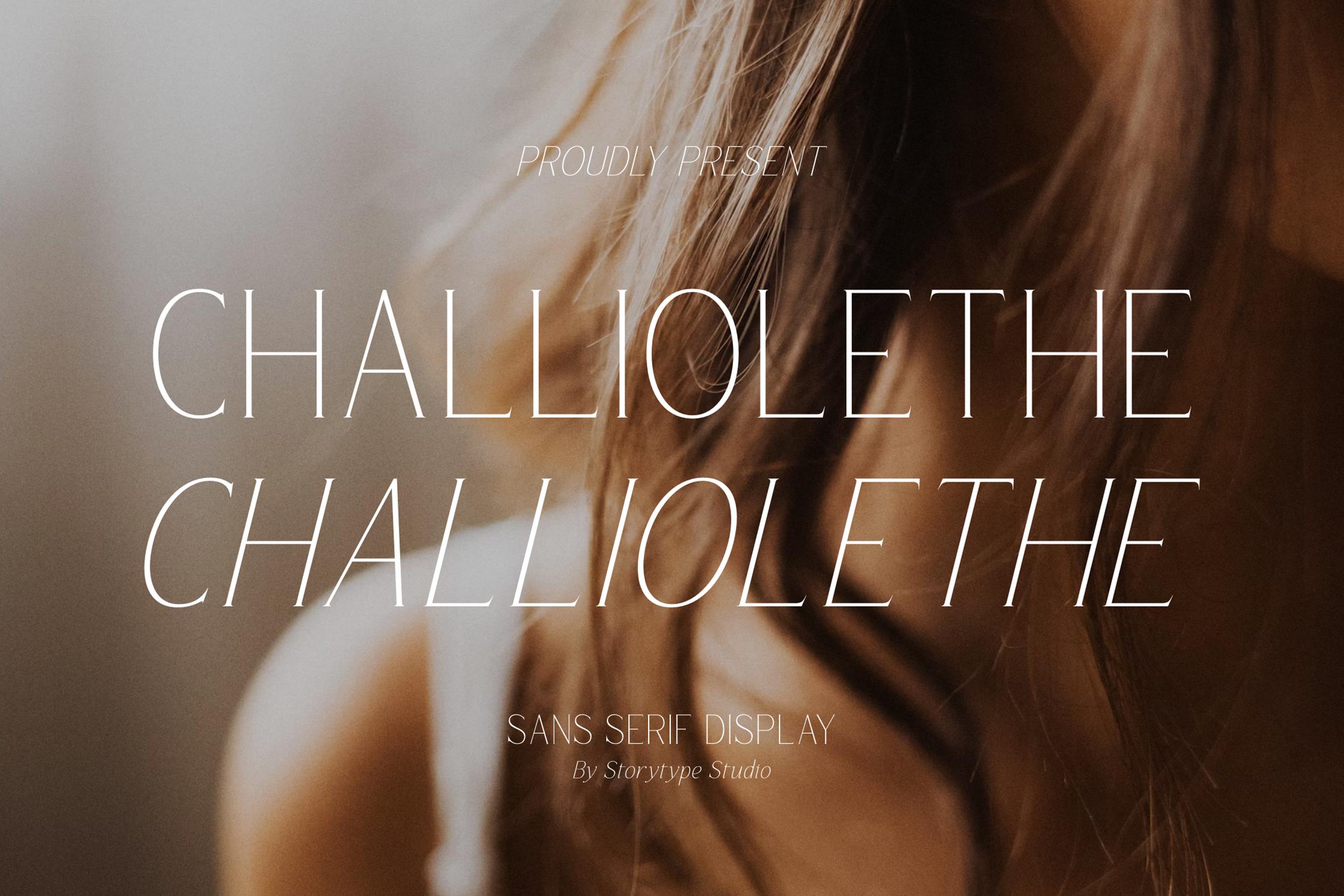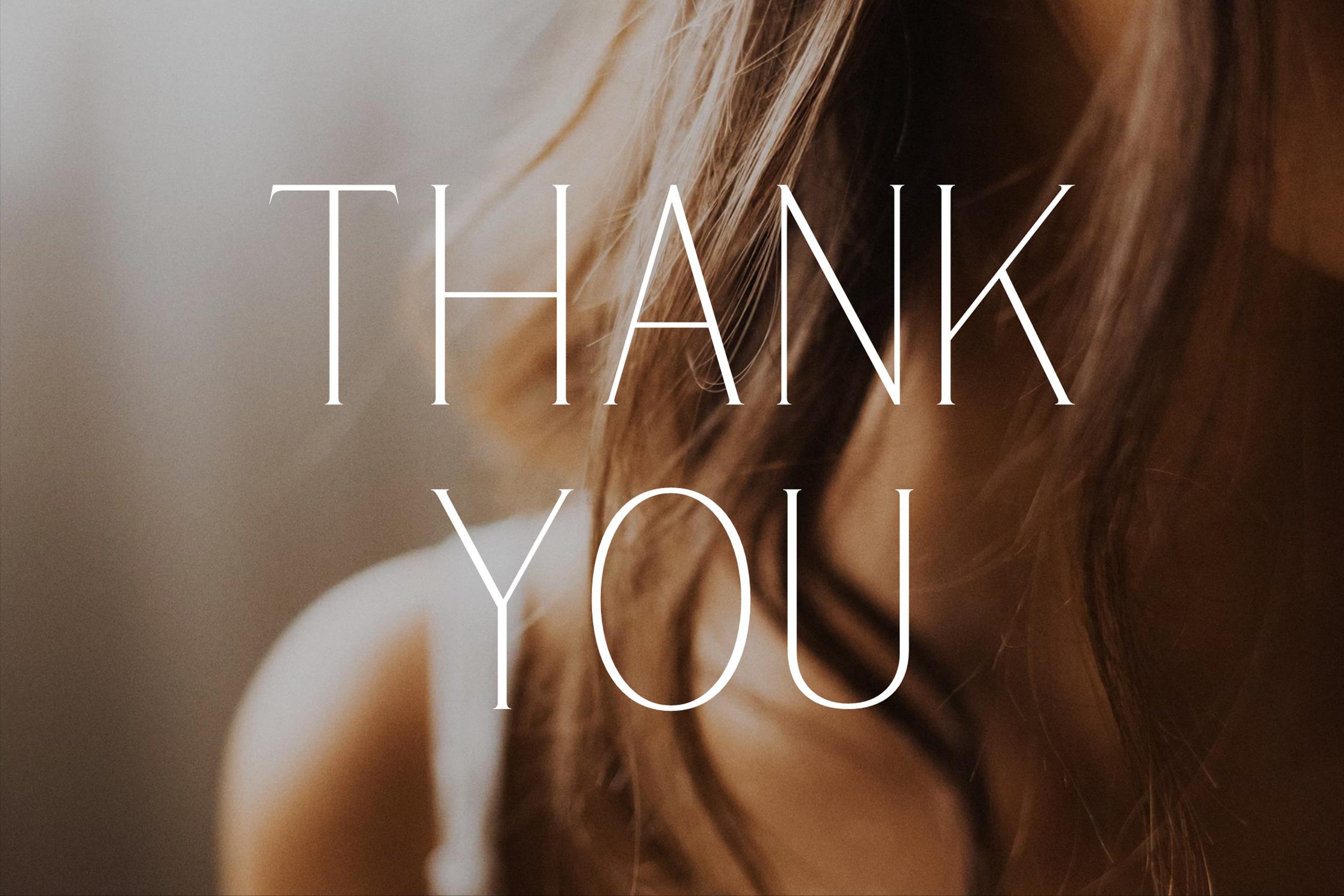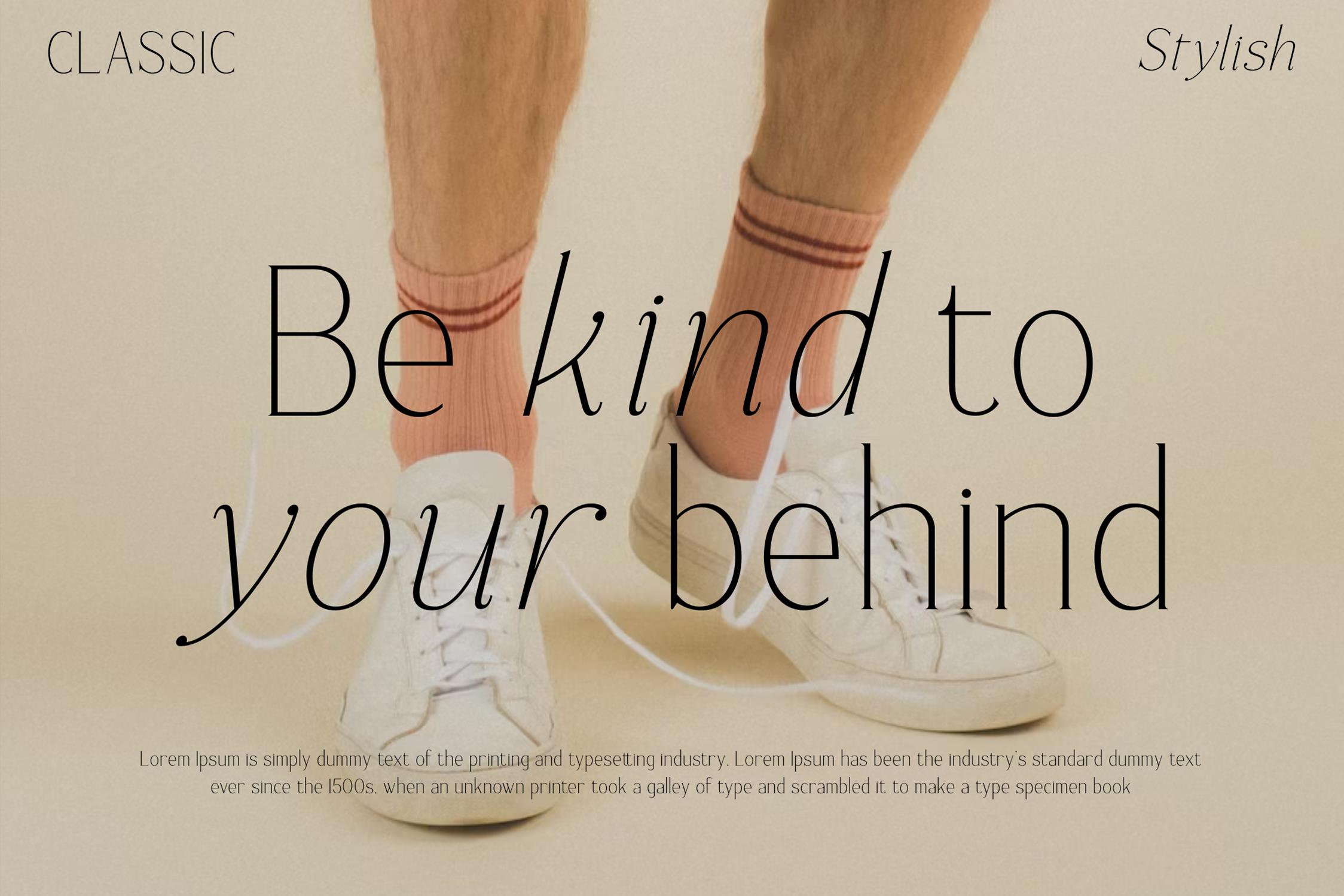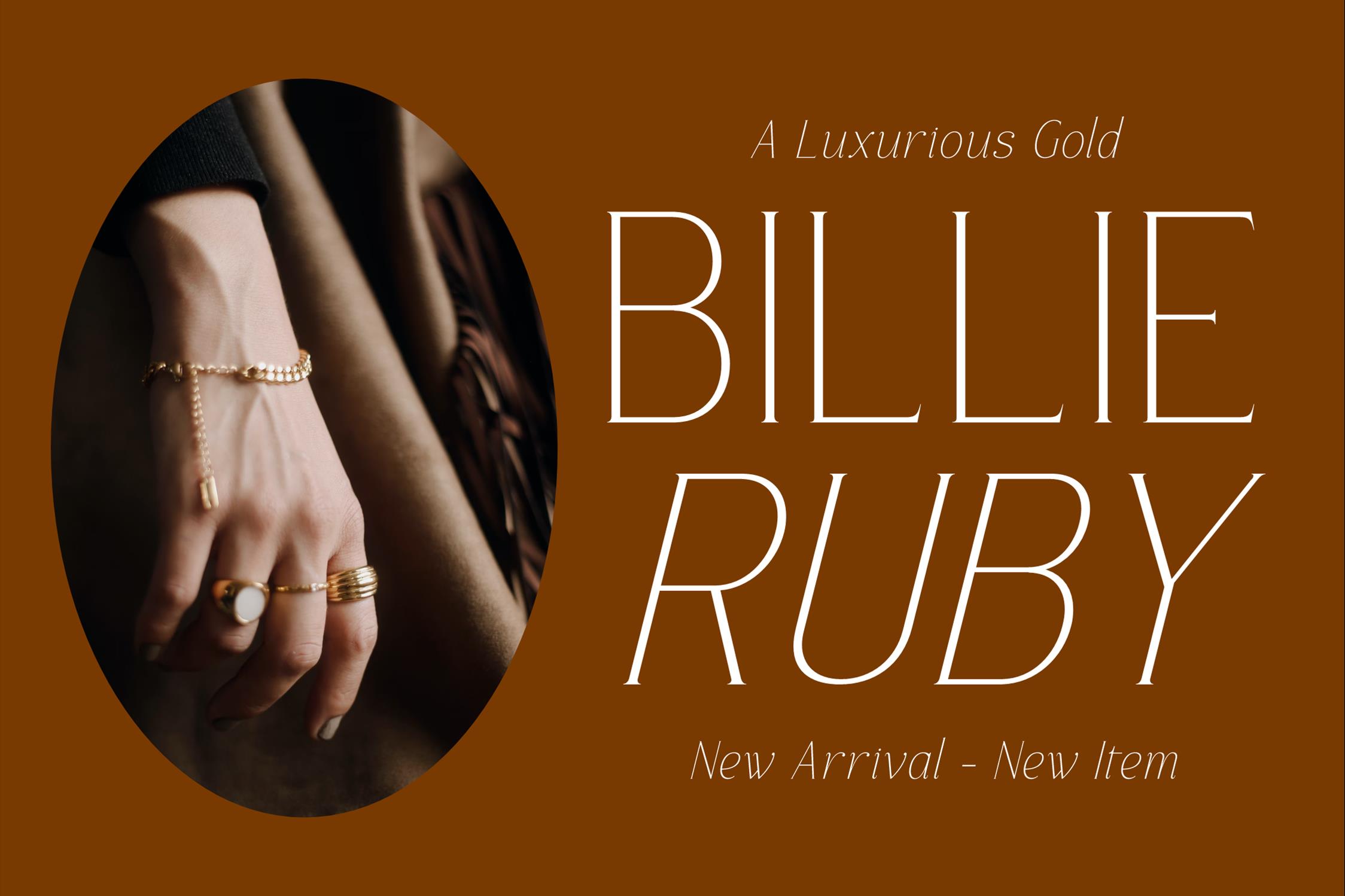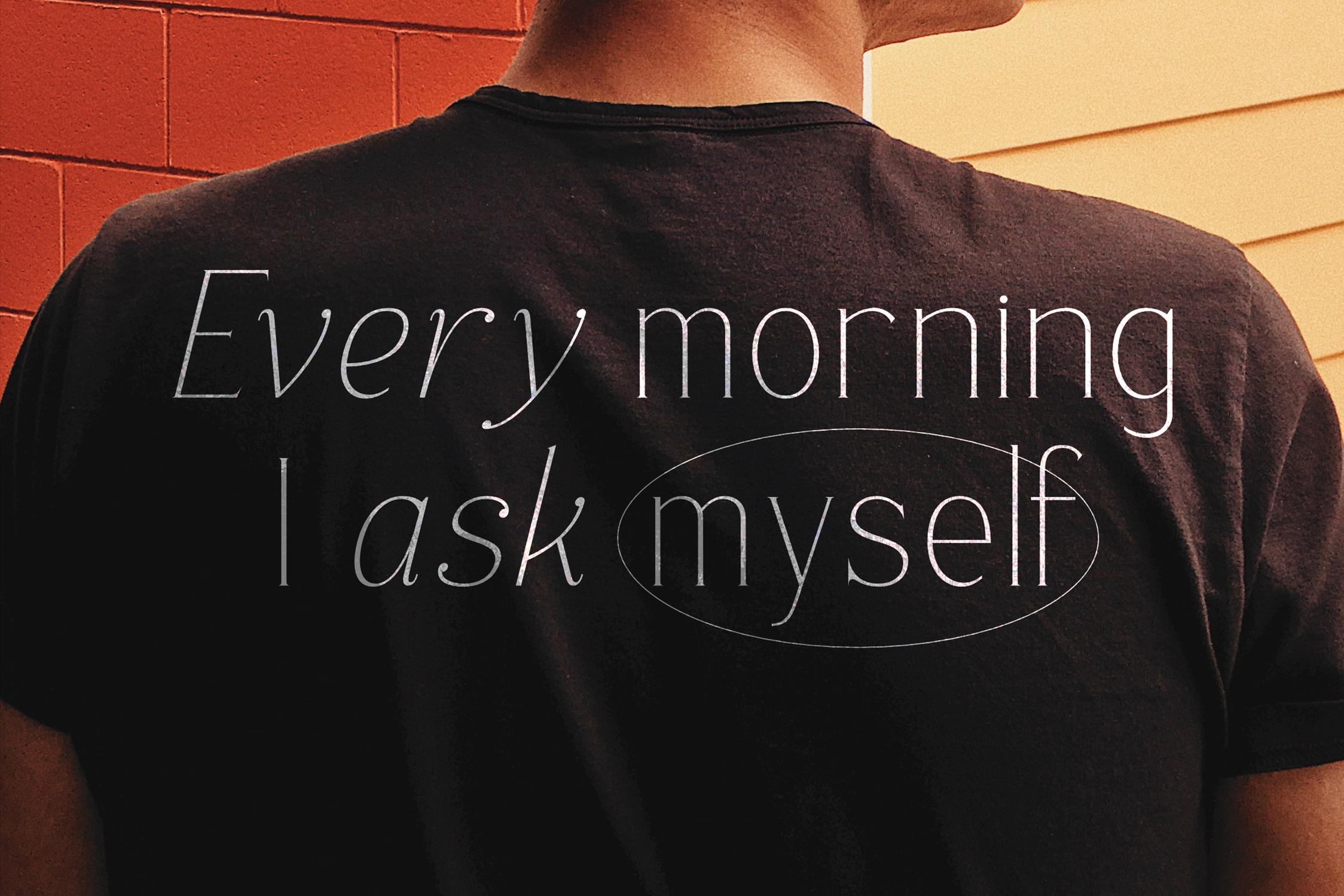
Challiolethe Font
Challiolethe Font is a serif modern and classic typeface that has own unique style & modern look. This typeface is perfect for an elegant & luxury logo, book or movie title design, fashion brand, magazine, clothes, lettering, quotes, and so much more.